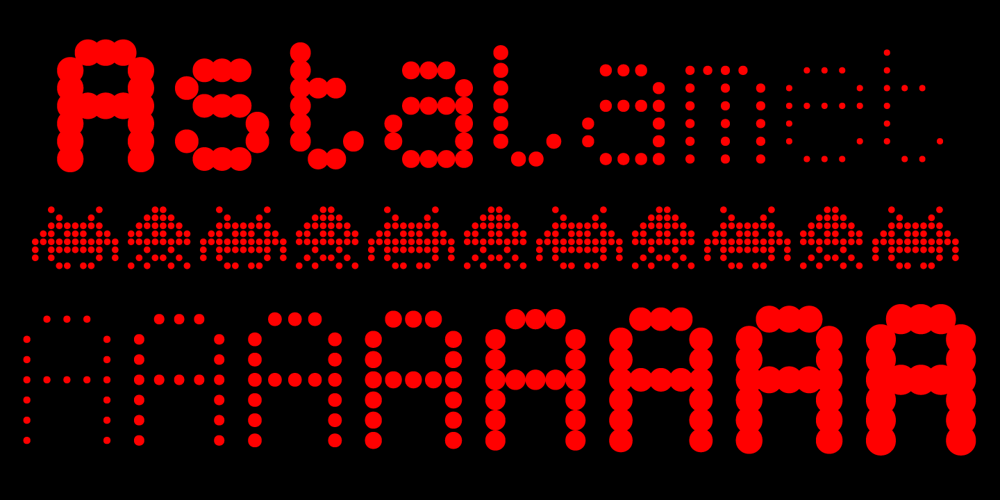
Astalamet Pro Font Family was designed by Bartek Nowak and published by GRIN3 (Nowak). Astalamet Pro contains 9 styles and family package options. Astalamet Pro is a new, completely redesigned and improved version of my font AstalametPure, which was released for the first time in 2001. Language support includes Western, Central and Eastern European character sets, as well as Baltic and Turkish languages.